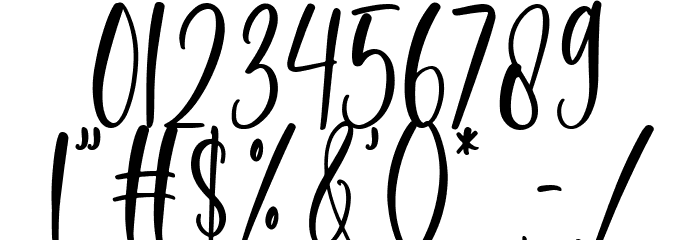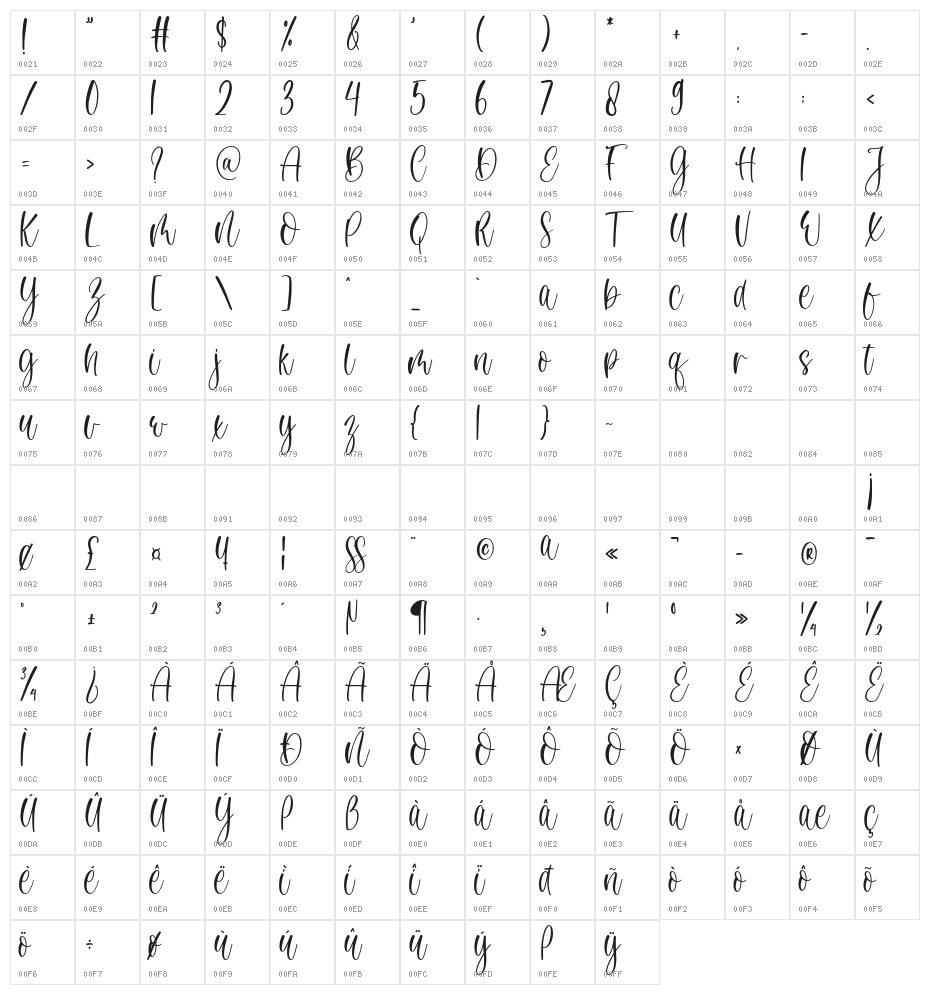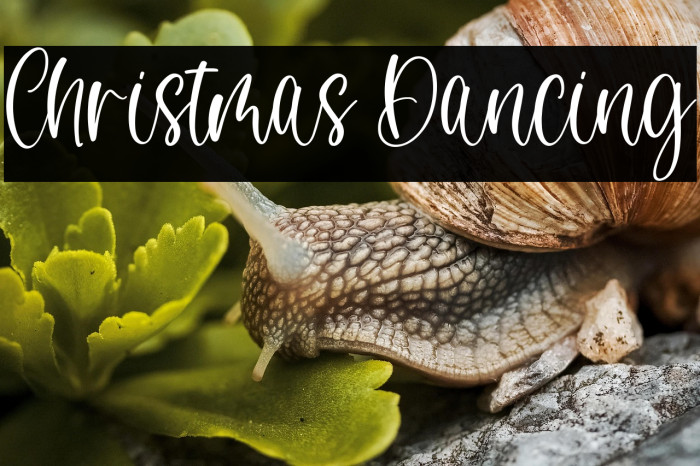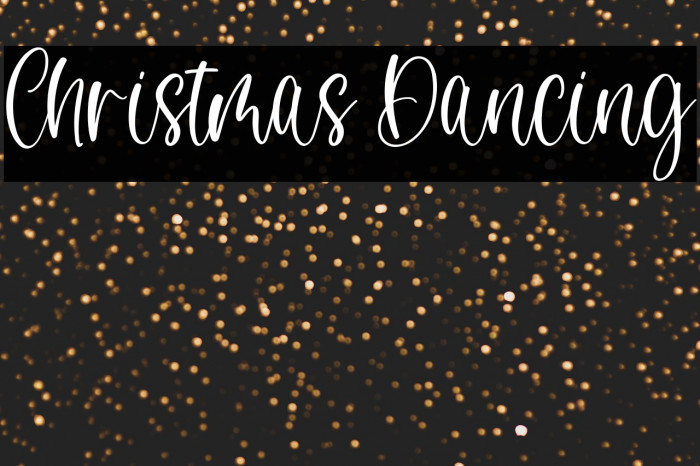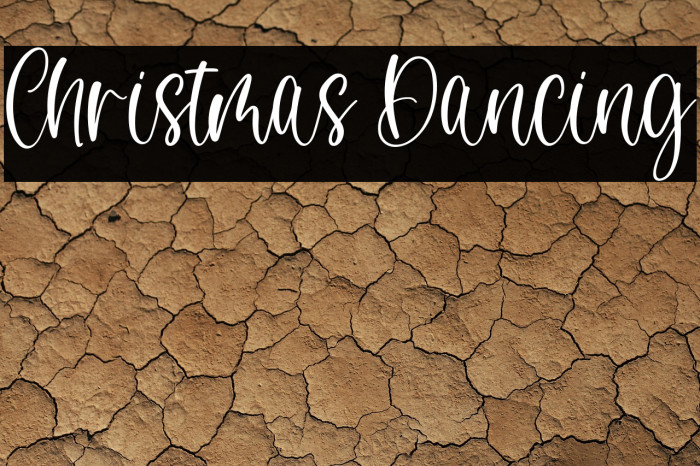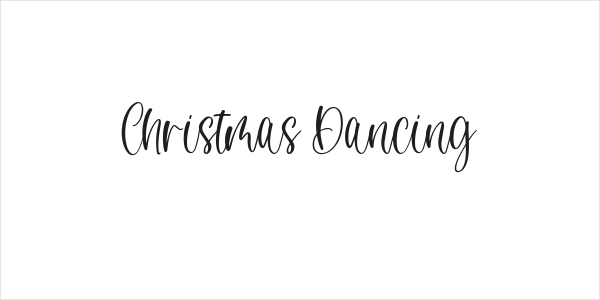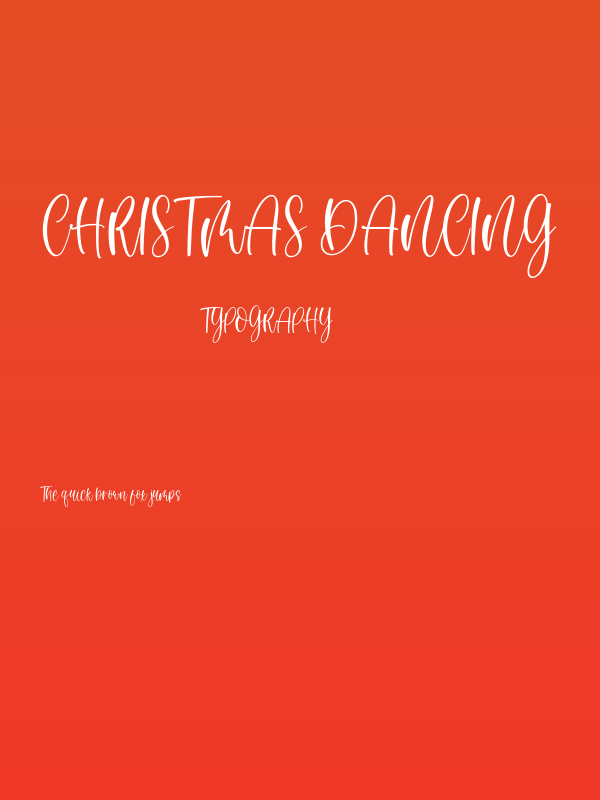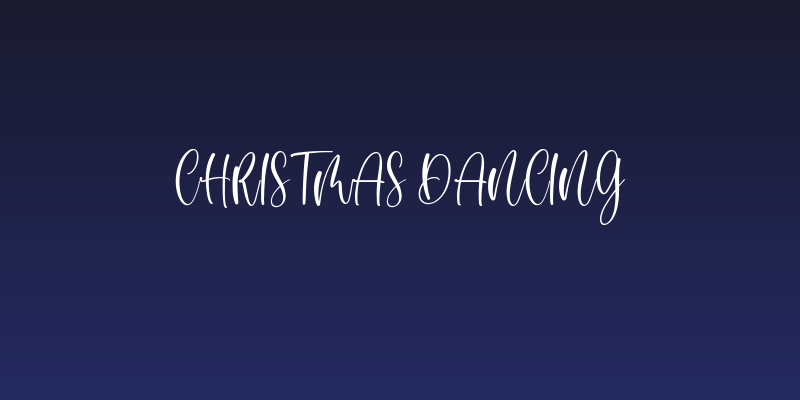
Christmas Dancing Font
Christmas Dancing Description
This font features a lively and expressive handwritten style, characterized by its fluid and dynamic strokes. The letters are connected in a cursive manner, giving it a personal and artistic touch. The uppercase letters are bold and prominent, while the lowercase letters maintain a consistent flow, enhancing readability. The numerals and special characters are designed to match the playful and whimsical nature of the alphabet. This font exudes a sense of joy and creativity, making it ideal for festive and celebratory themes.